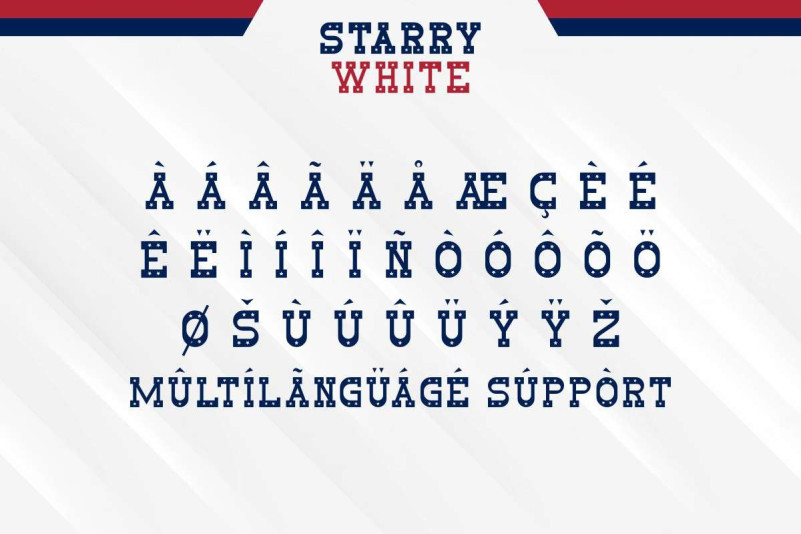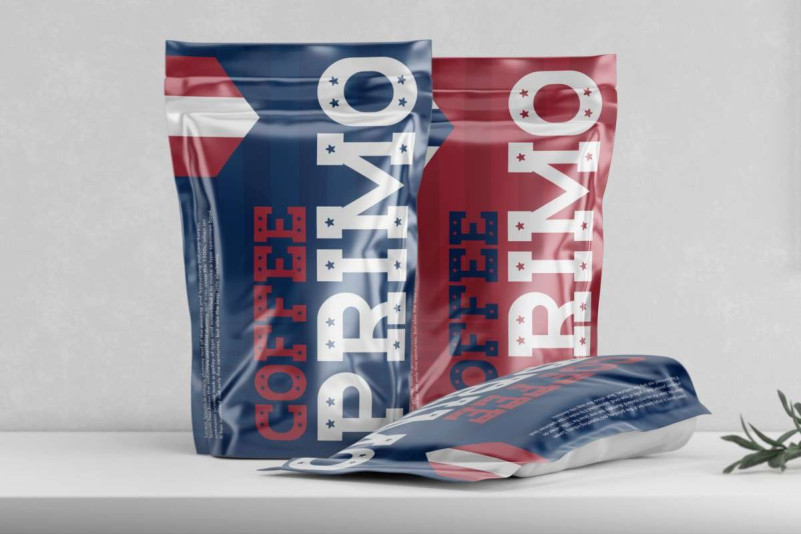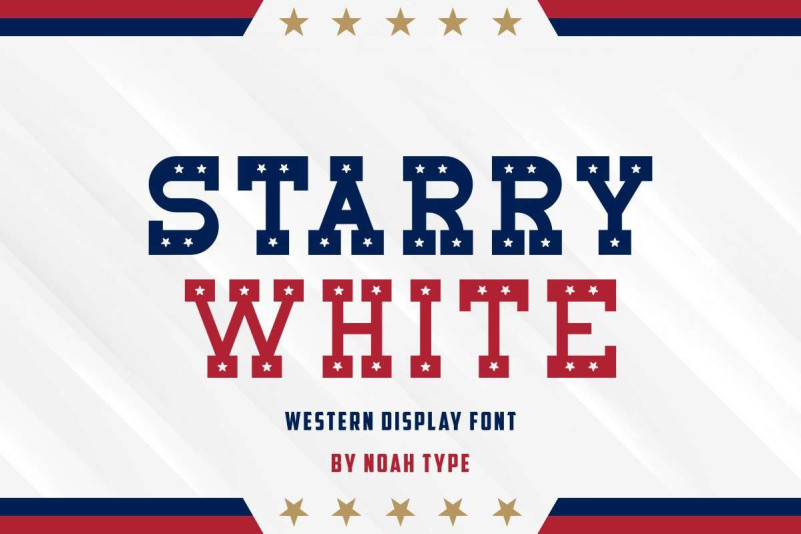
Starry White Font
Starry White Font is a display font inspired from the patriot days in USA with hero patriotic yet fun and comedic style. The font has two different styles : Regular and Bold styles, exclusively designed by NoahType. This font has bold lines that are neatly made with stars filling in them for a stunning look. It would be perfect for many industries, such as accessories, advertisement, clothing brand, festival event, film, machine shop, political, printing, publishing, and more!
Starry White Font includes the basic character set of ALL CAPS, Numerals and Punctuation. The character on this font will make you believe that it is the perfect choice for designs, such as billboard, book cover, brooch pin, business card, custom design, frame art, header, labels, poster, product packaging, quotes, signage, website, etc.
Starry White Font supports multilingual languages (including multiple currency symbols). With a simple installation and will be ready to use both on Windows machine or Mac. It really common in almost any software (Character Map for Windows and Font Book for Mac). It work well on Adobe software such as Illustrator, Photoshop and several other software.